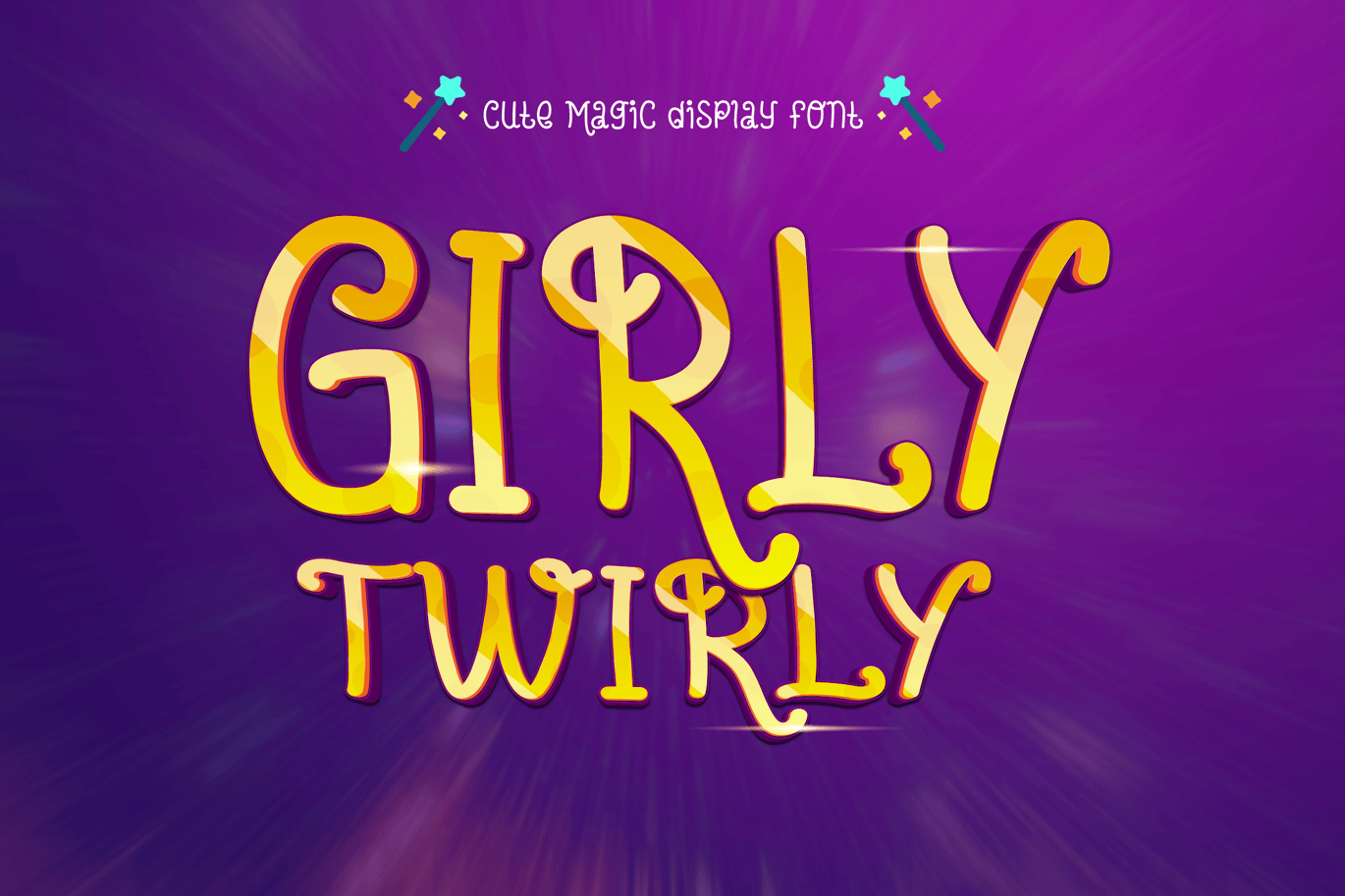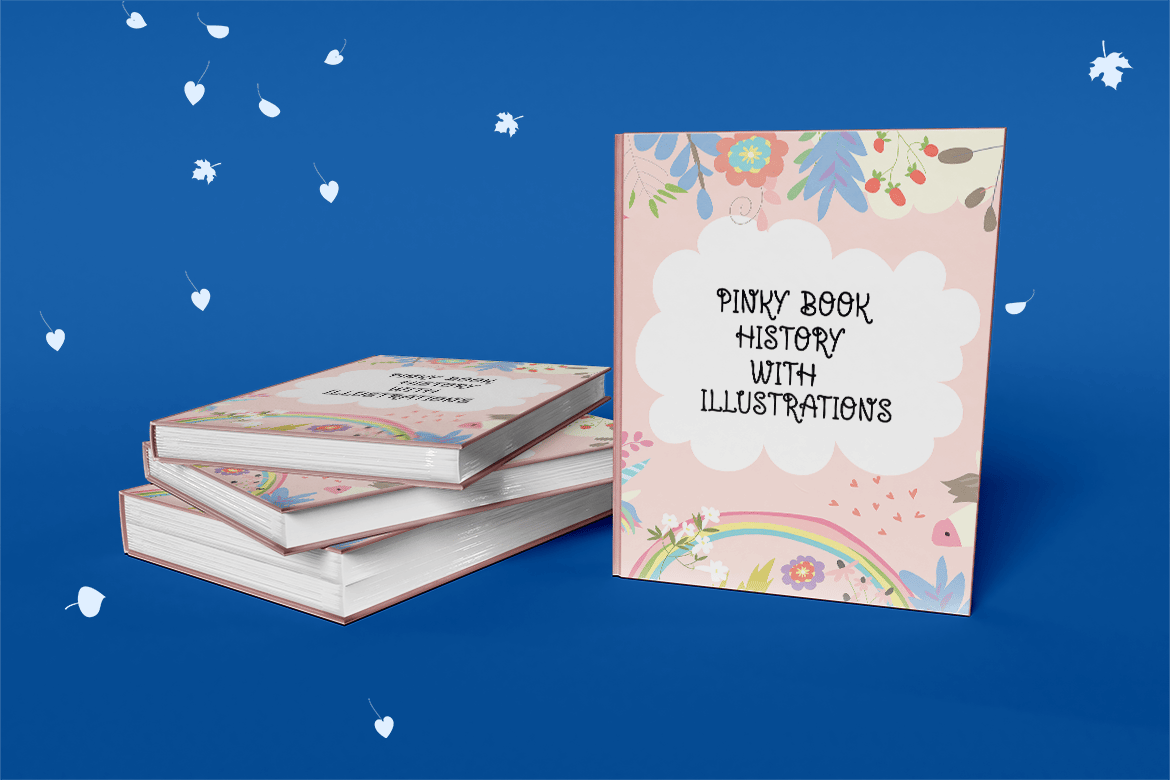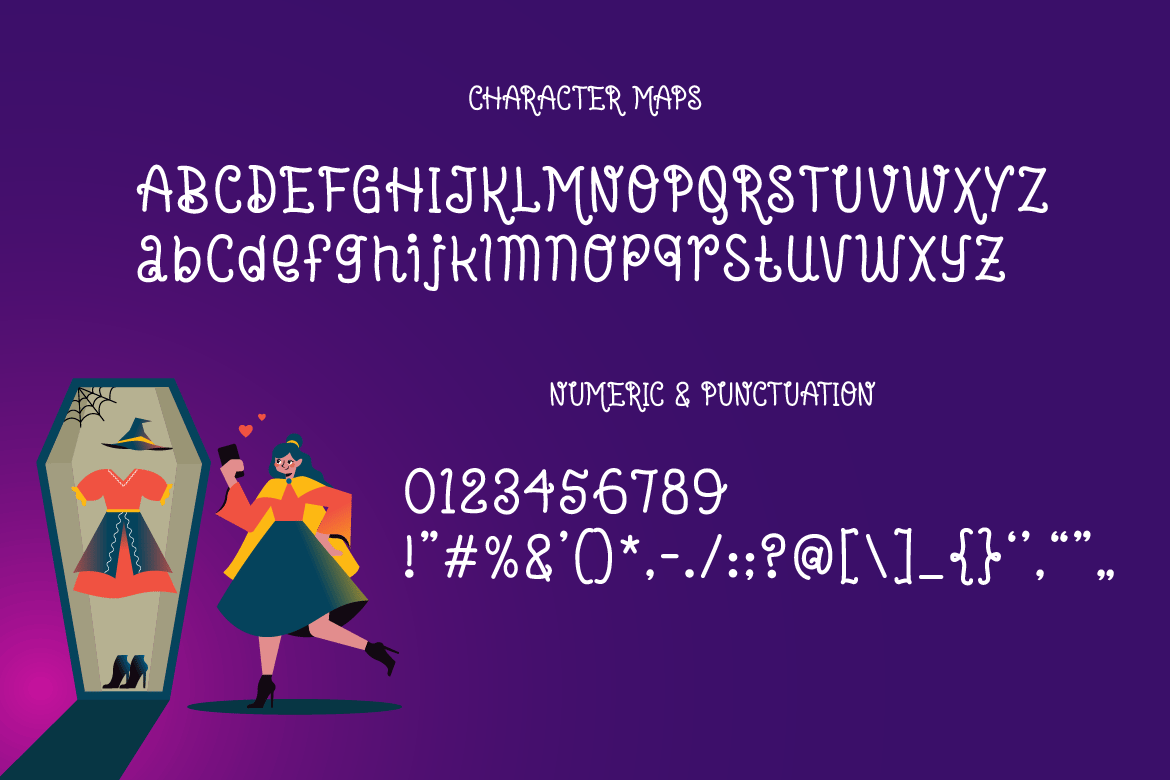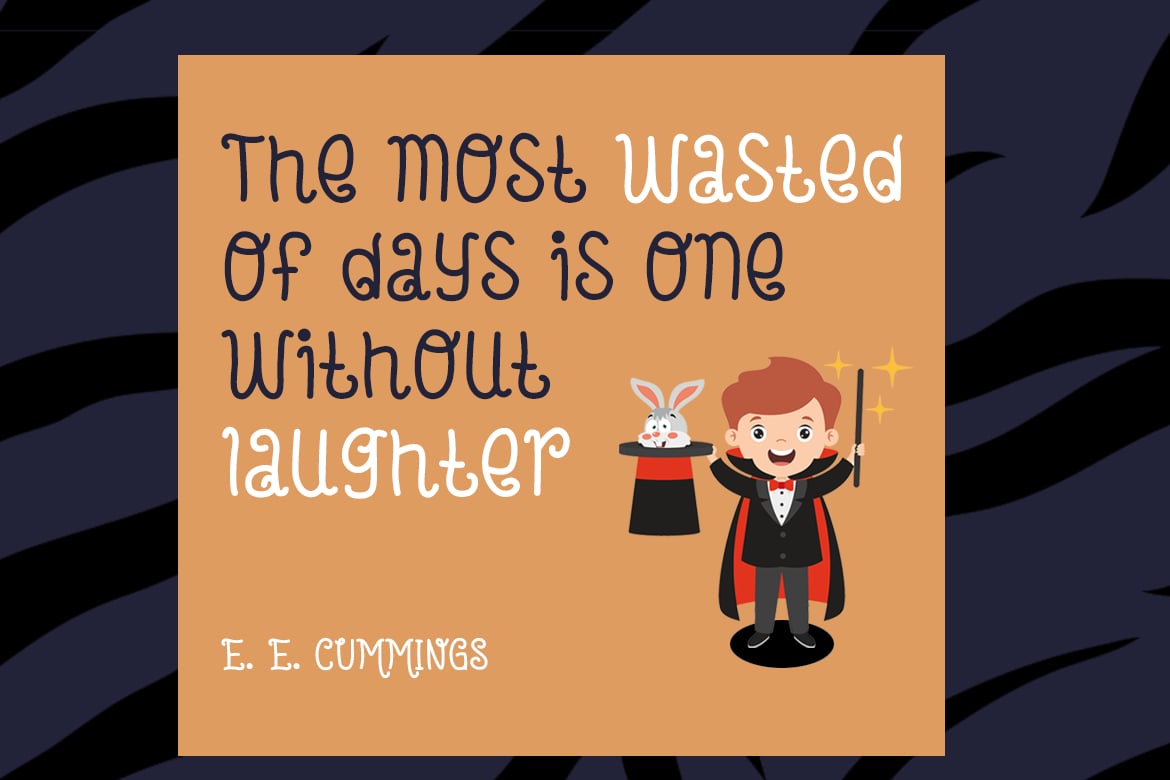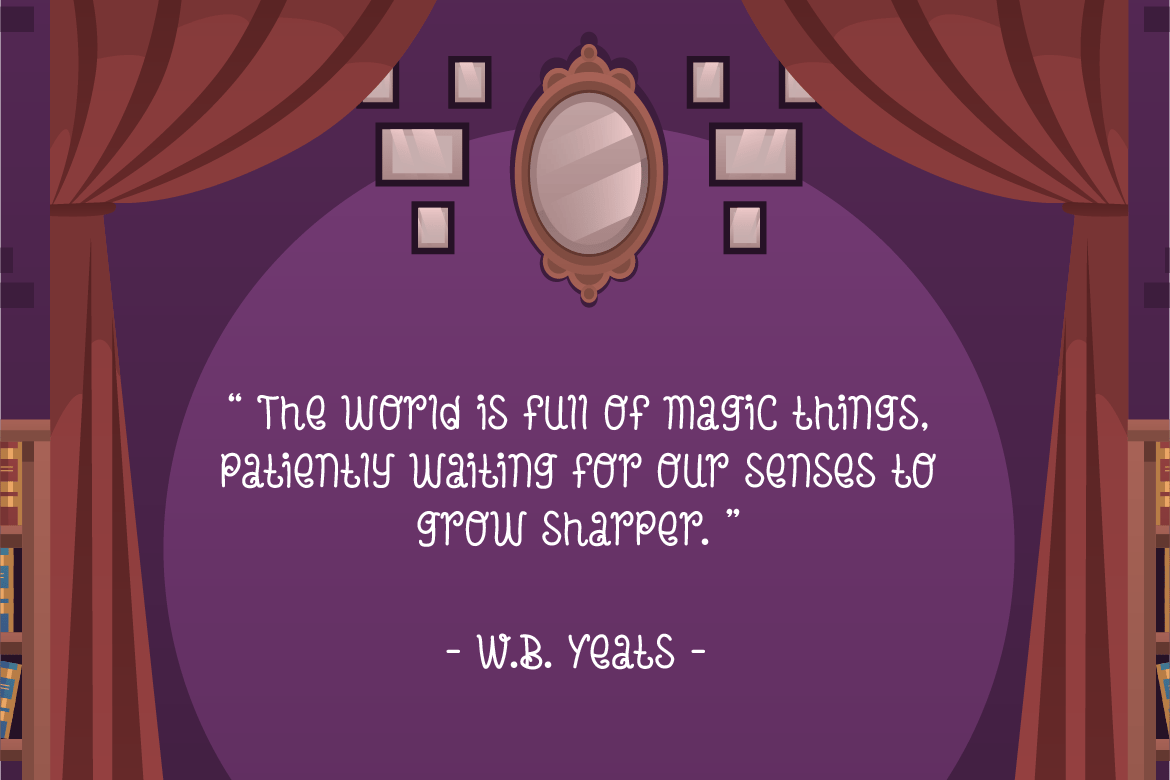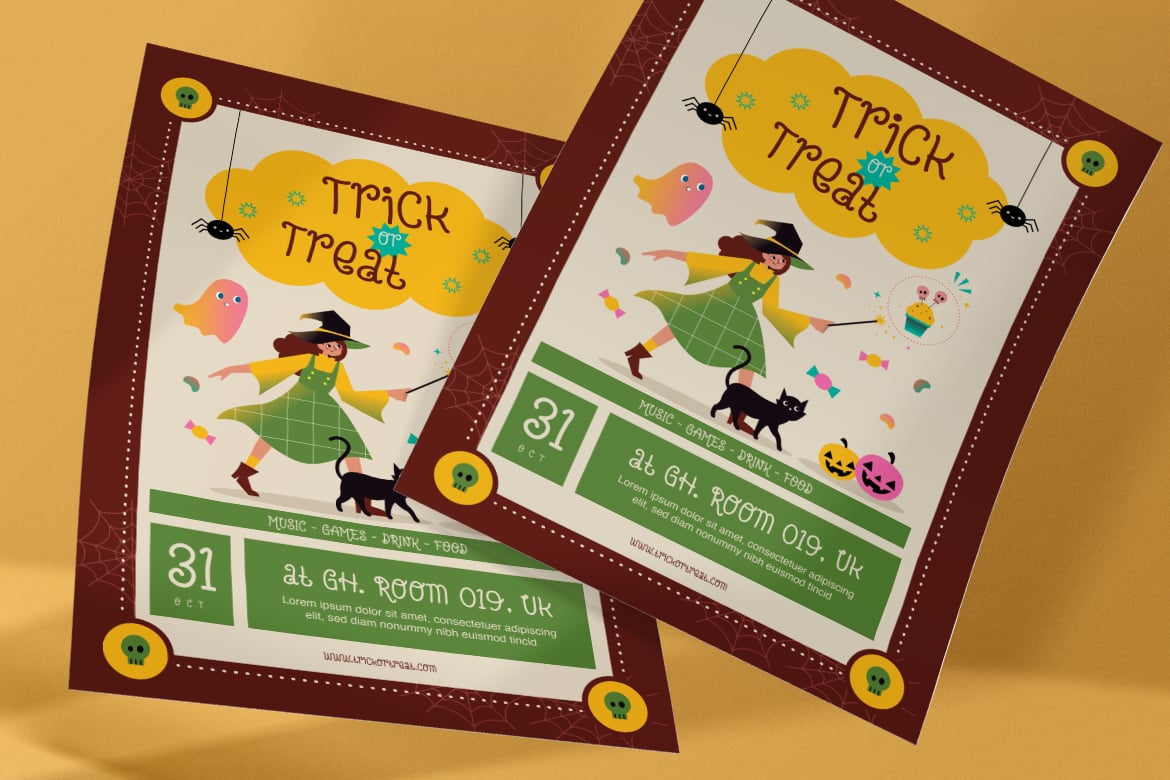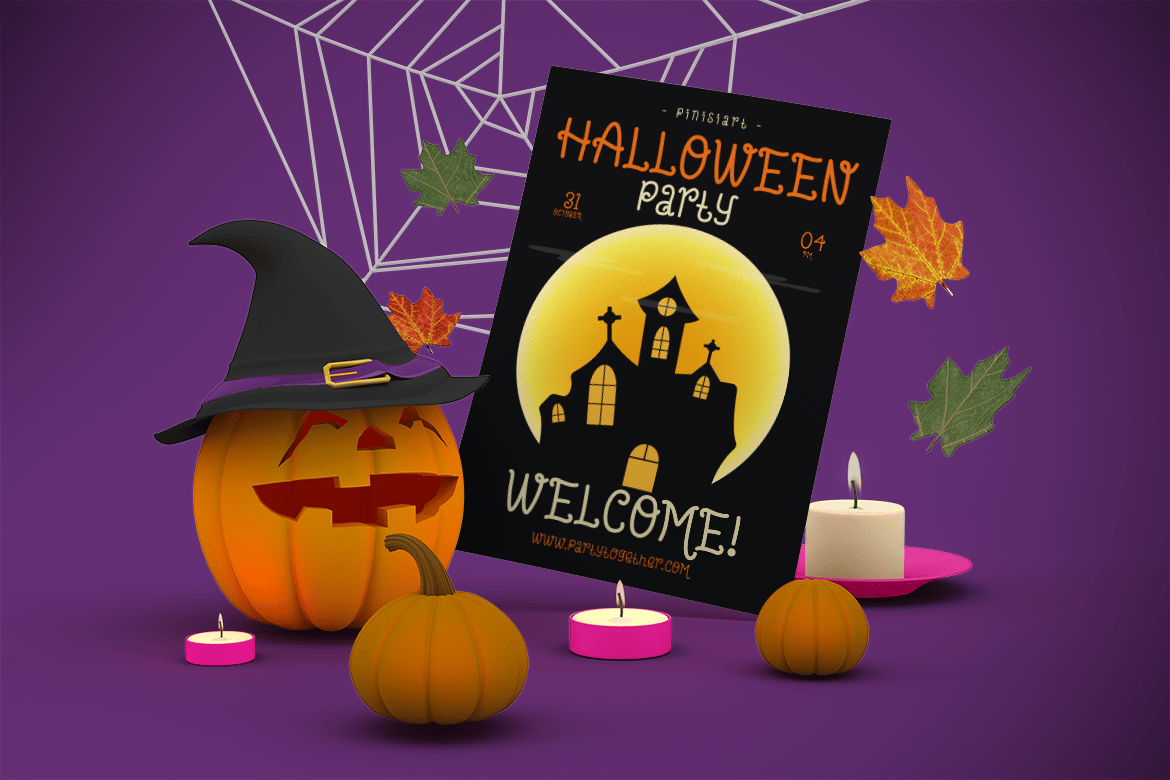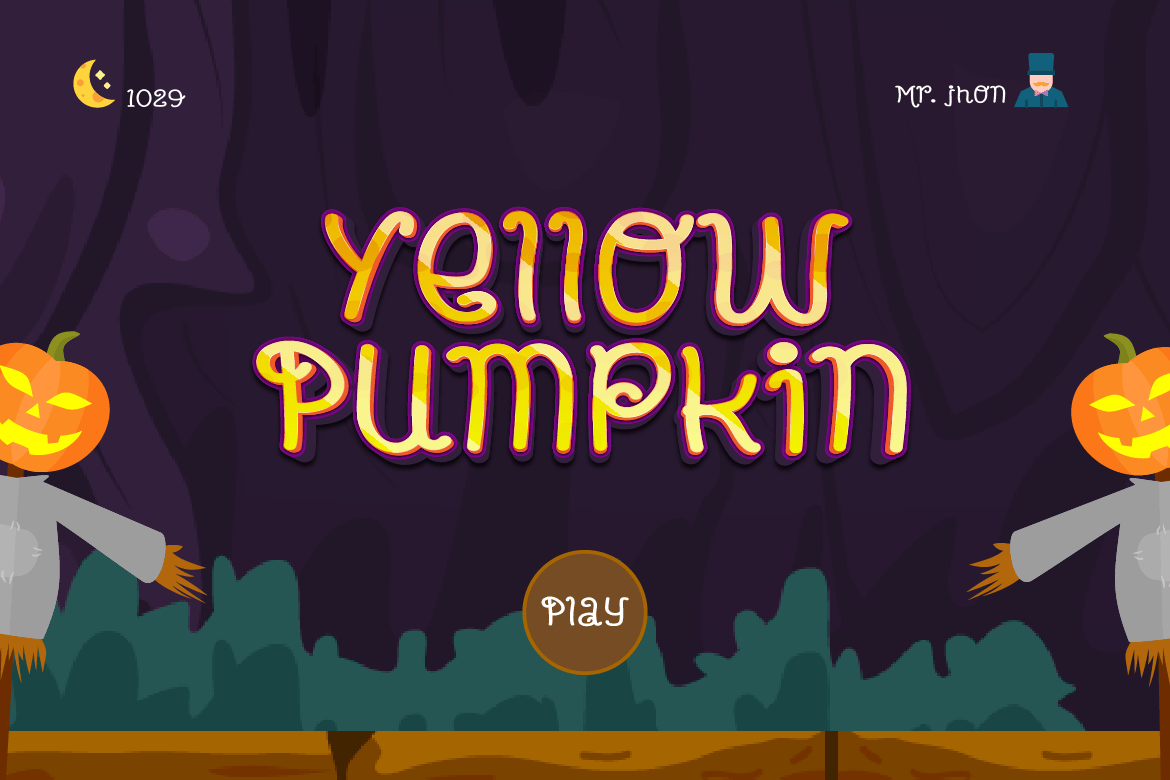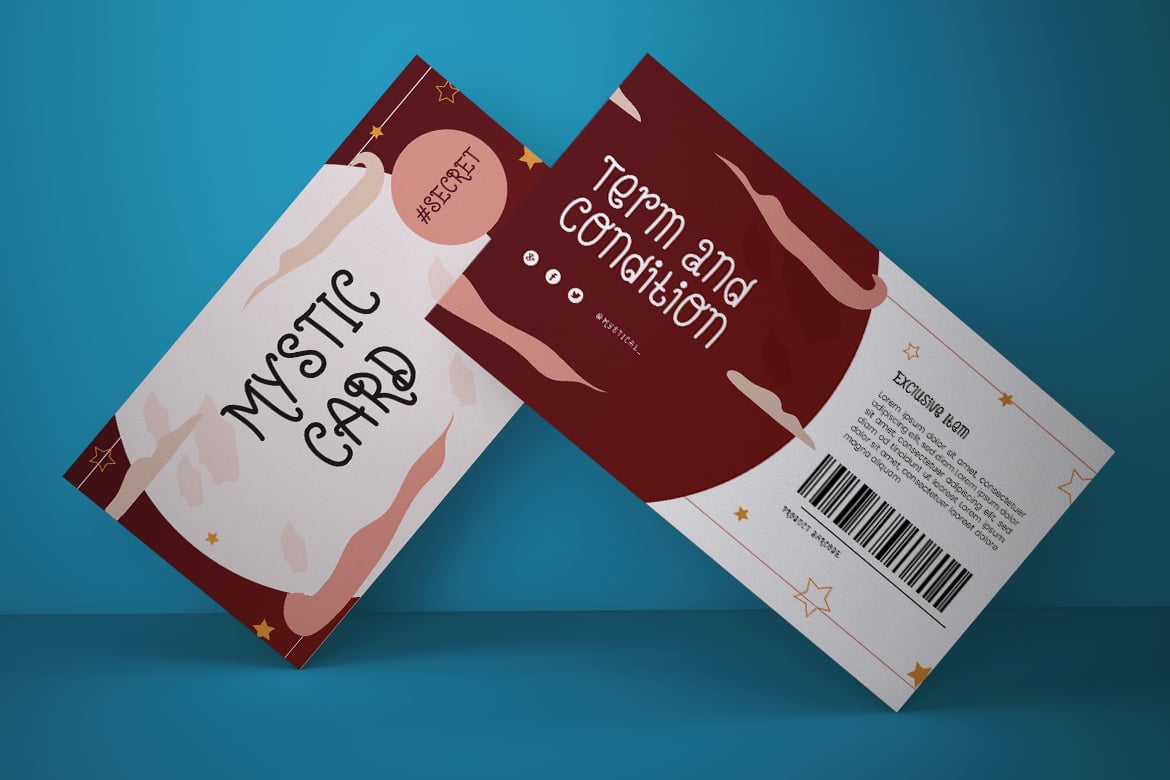
Girly Twirly – Cute Magic Display Font
A girly font that brings a smile and magical ambiance to every word written. It will captured your audience heart in a single flick of its wand.
Suit perfect for girly books market, online games, teens event posters, school supplies font, poster, movie title, youtube covers, youtube thumbnails, social media page covers, and so on…